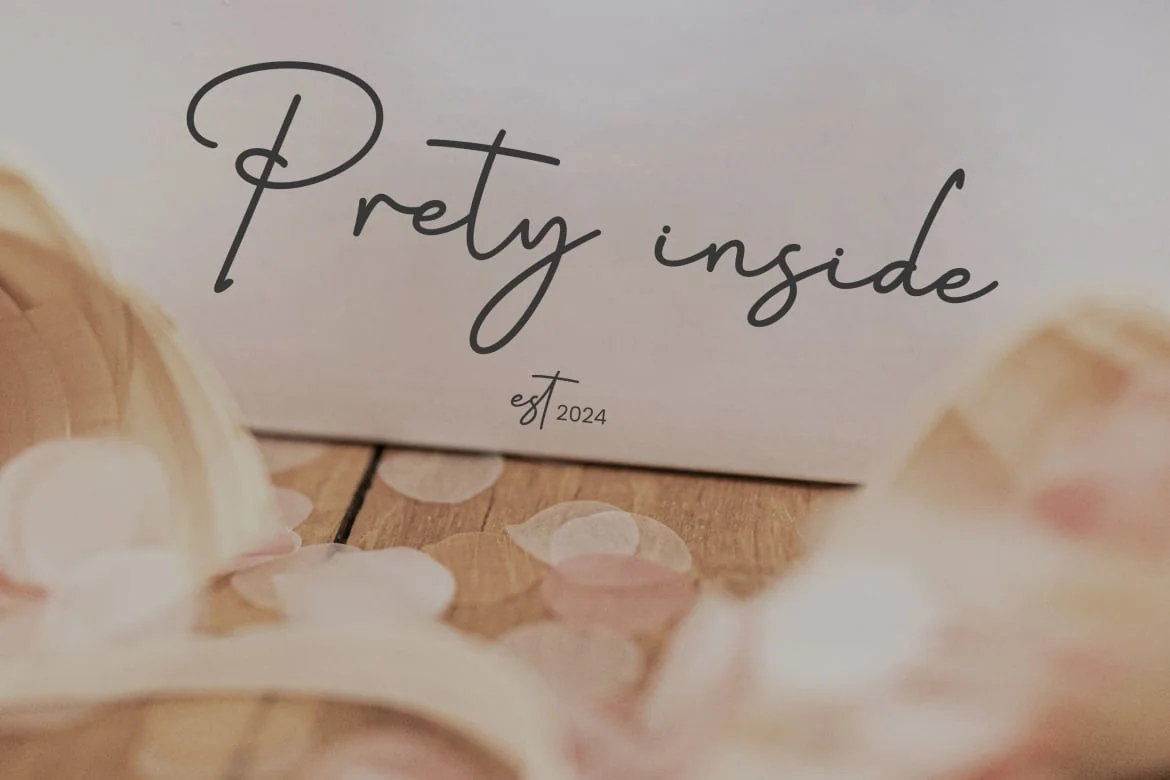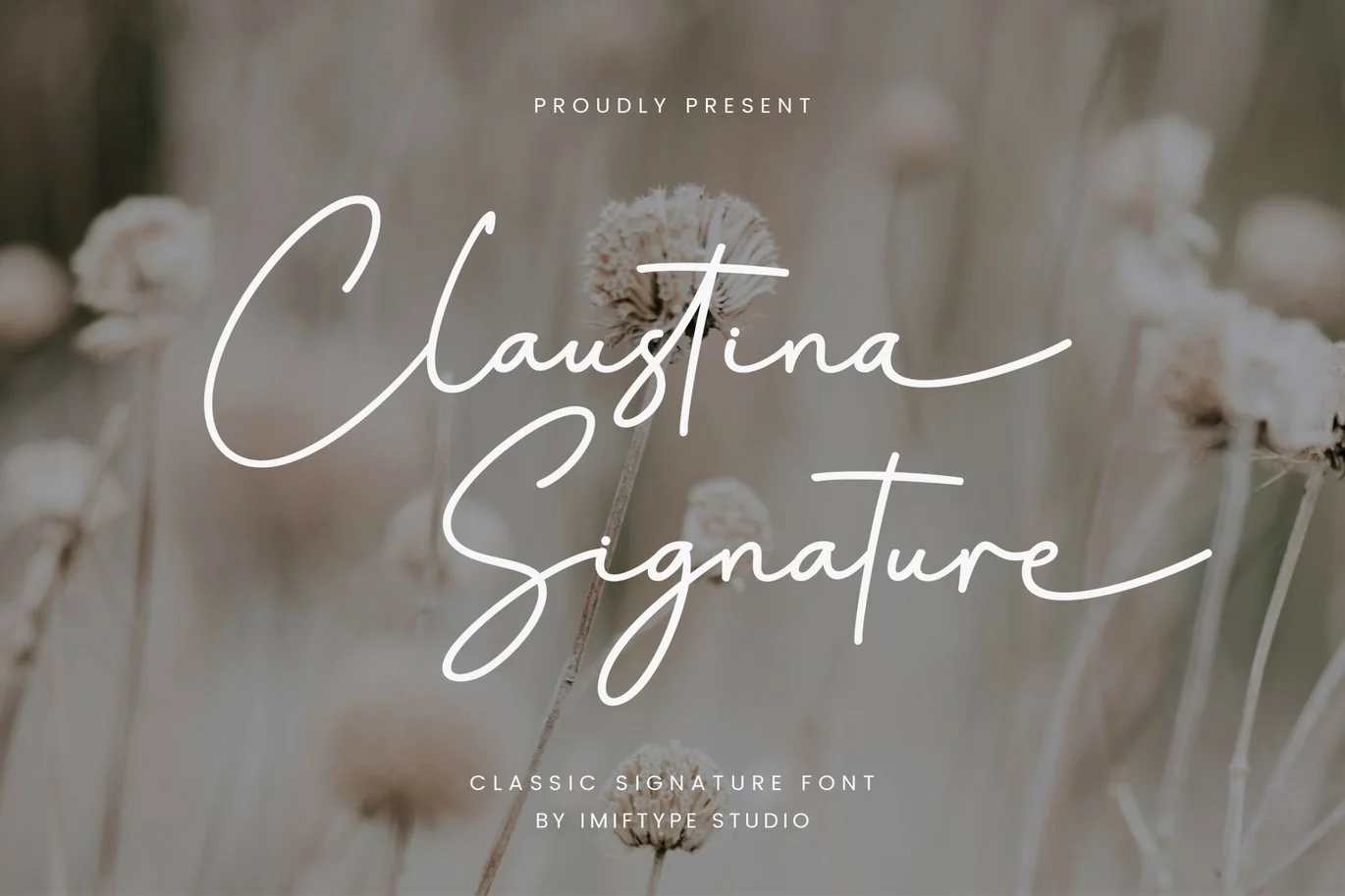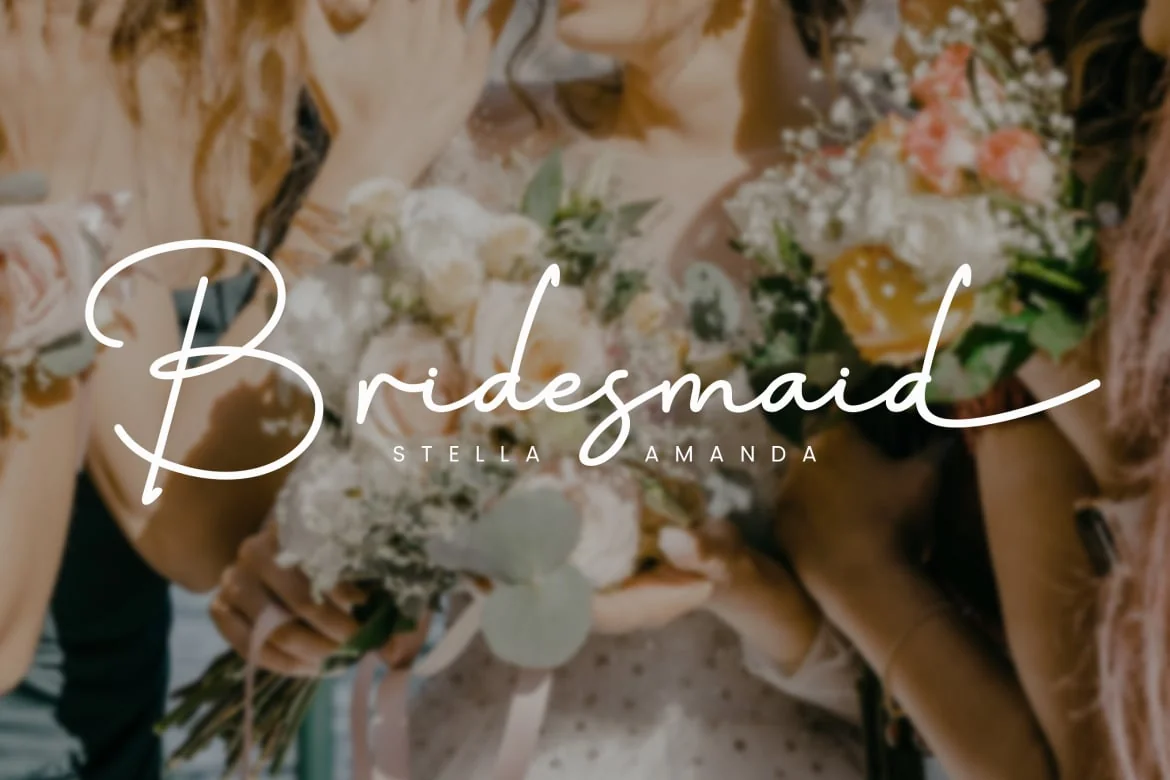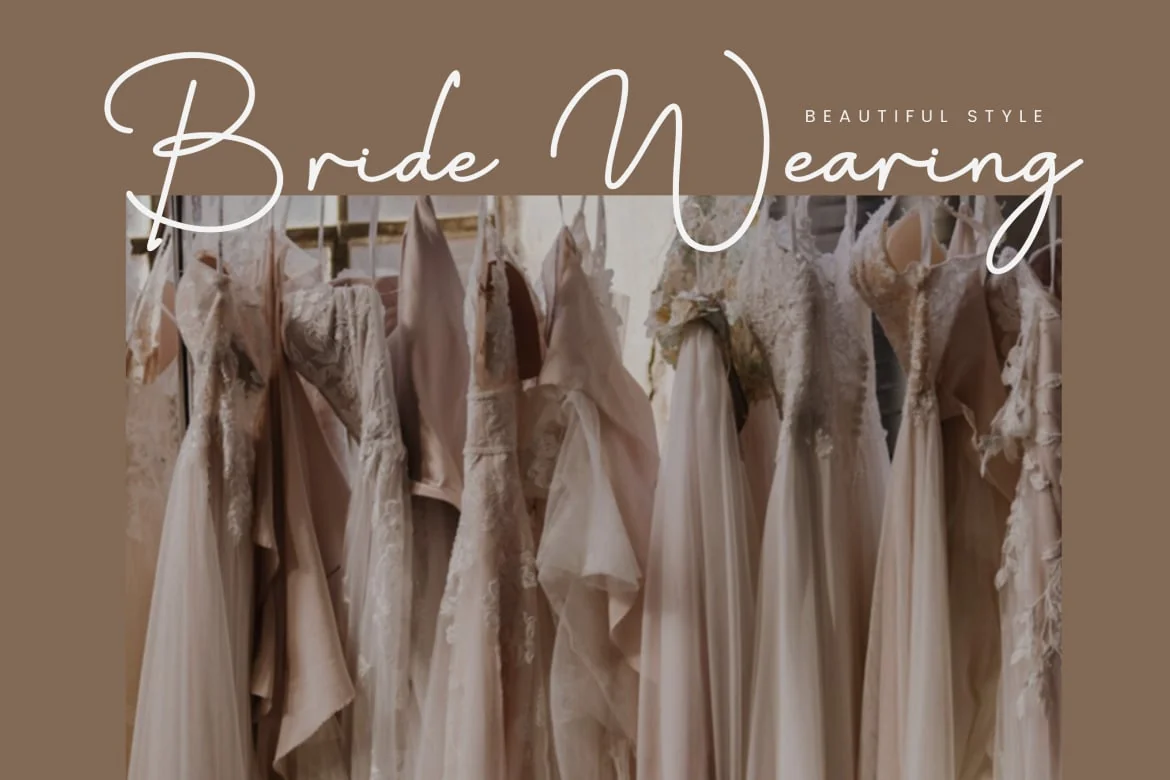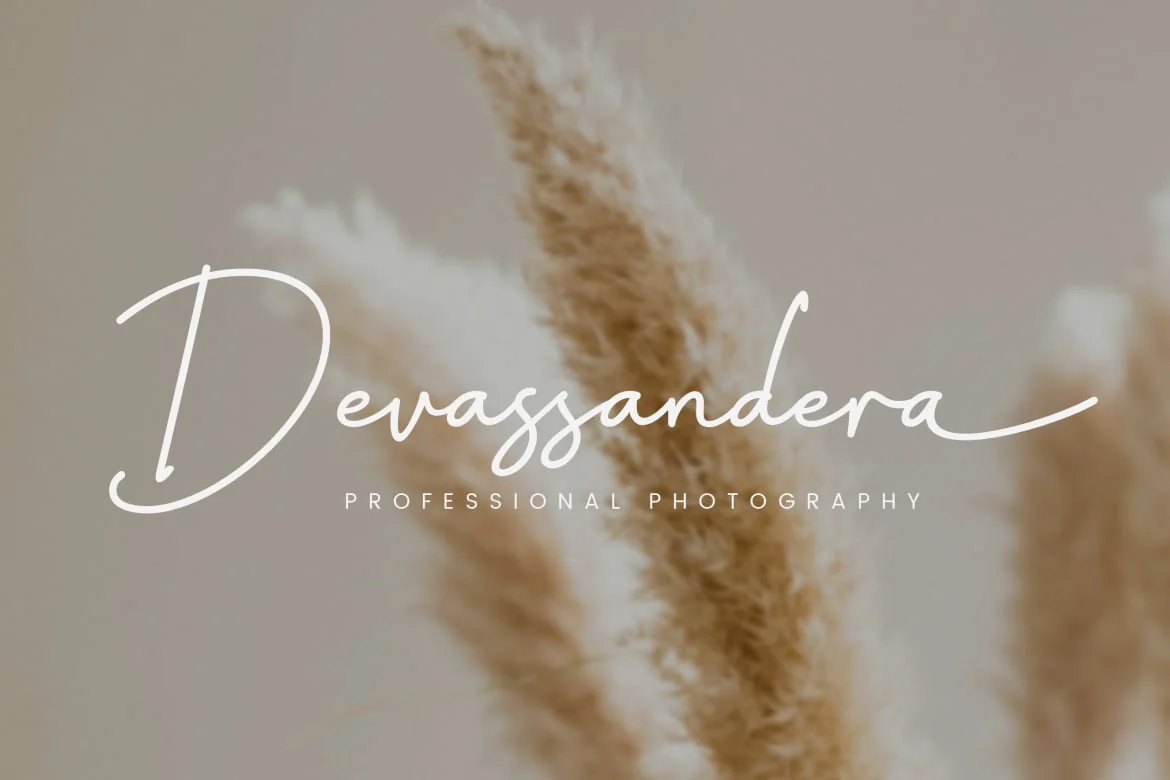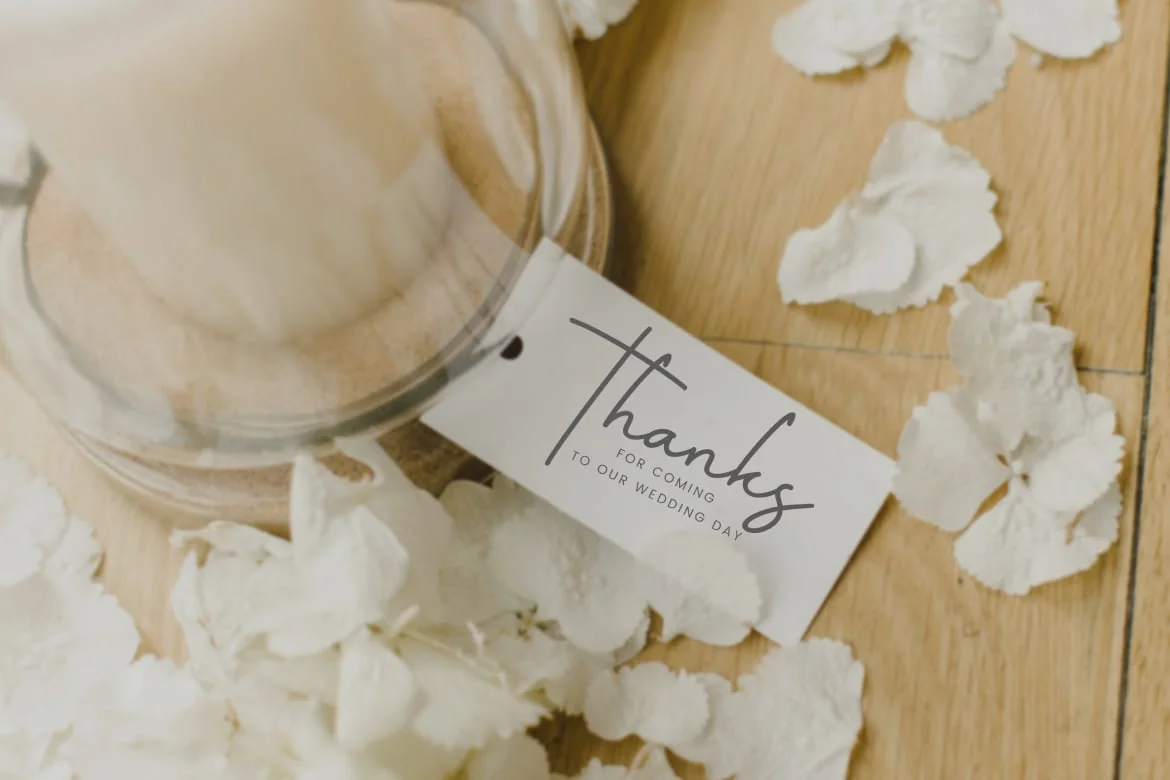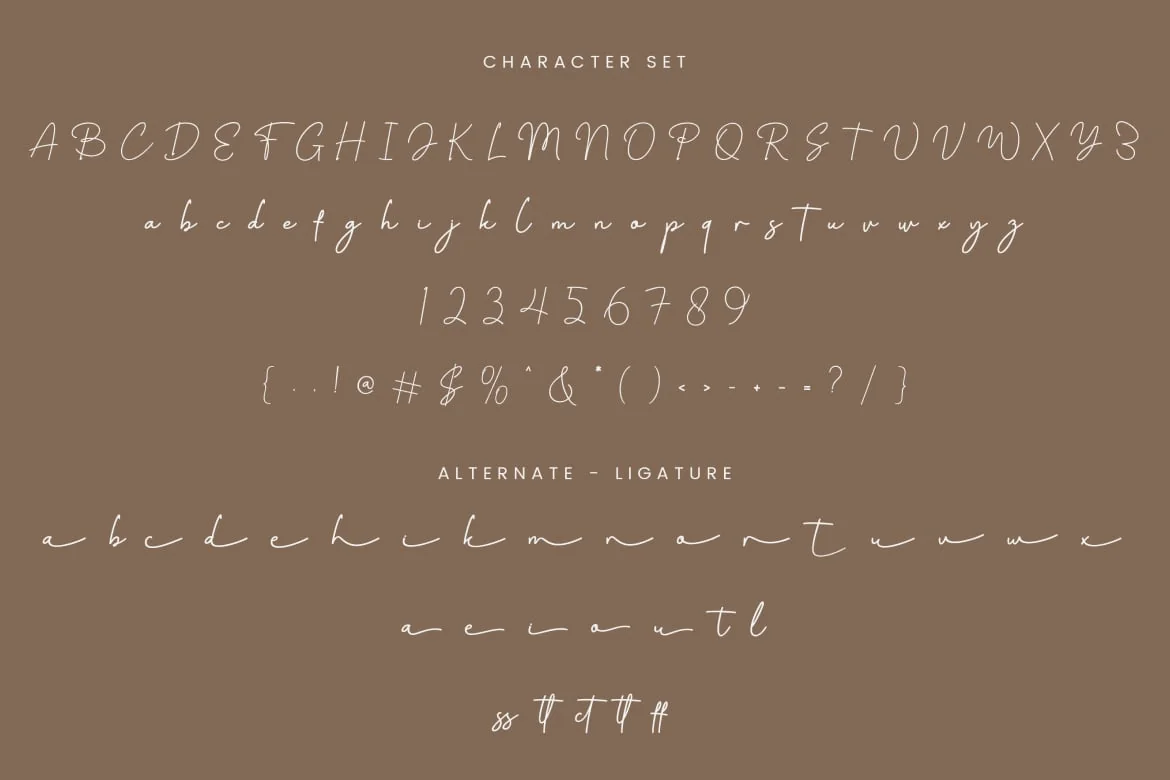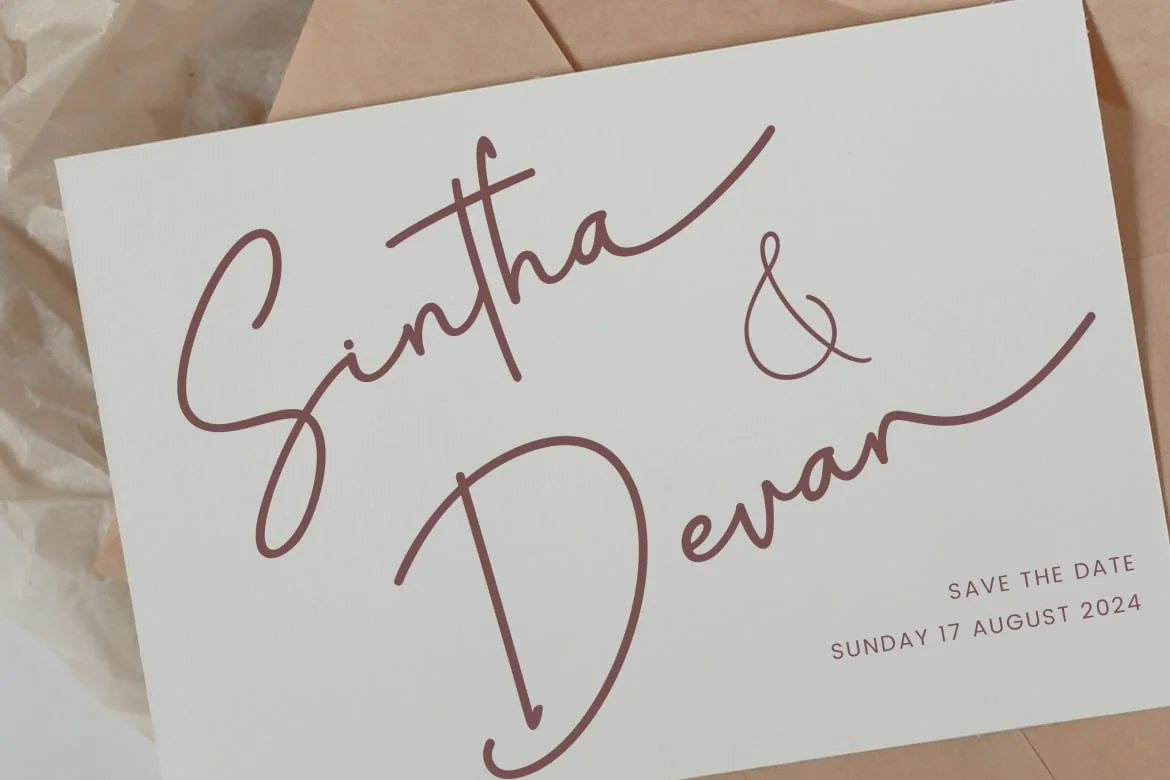
Claustina Signature – Classic Signature Font
Claustina Signature – Classic Signature Font is a refined and versatile typeface, perfect for elevating any creative project. Whether you’re working on logos, branding, home decor designs, product packaging, or creating quotes, posters, and greeting cards, Claustina adds a touch of luxury and sophistication. Its graceful script is ideal for projects that demand an elegant and polished aesthetic.
- Ligatures & Alternates
- Uppercase and Lowercase Letters
- Accents (Multilingual Support)
- Stylistic Sets for Ligatures and Alternate Styles